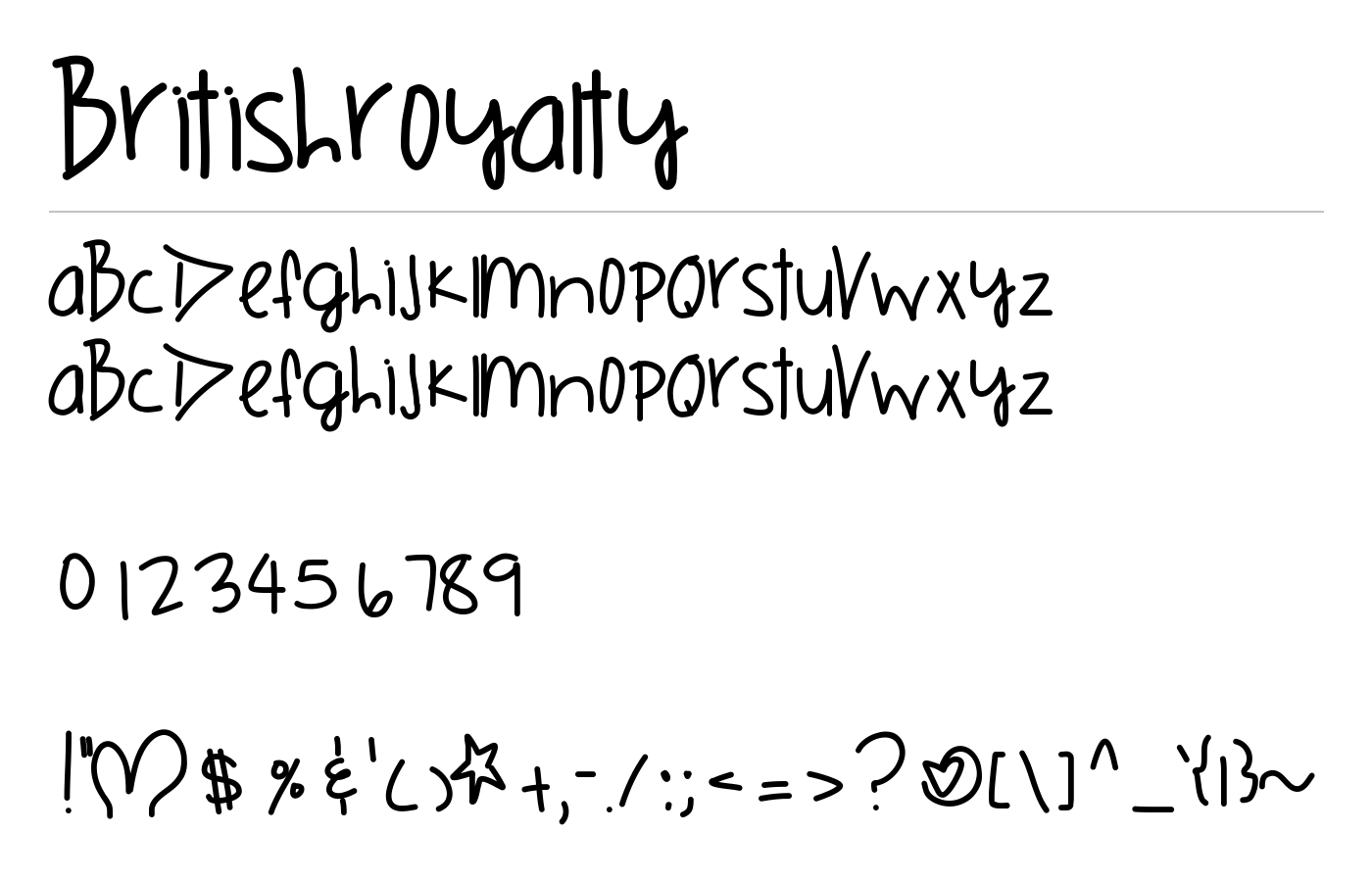
BritishRoyalty is a playful, casual handwritten font with a light weight and tall, narrow letterforms that give it a lively, friendly feel. Its simple, slightly quirky strokes and unique charm make it ideal for informal designs like greeting cards, personal blogs, or creative projects that want to convey warmth and approachability. This font works best in headlines or short texts, adding a fun and whimsical touch without sacrificing readability.
BritishRoyalty Font
About BritishRoyalty Font